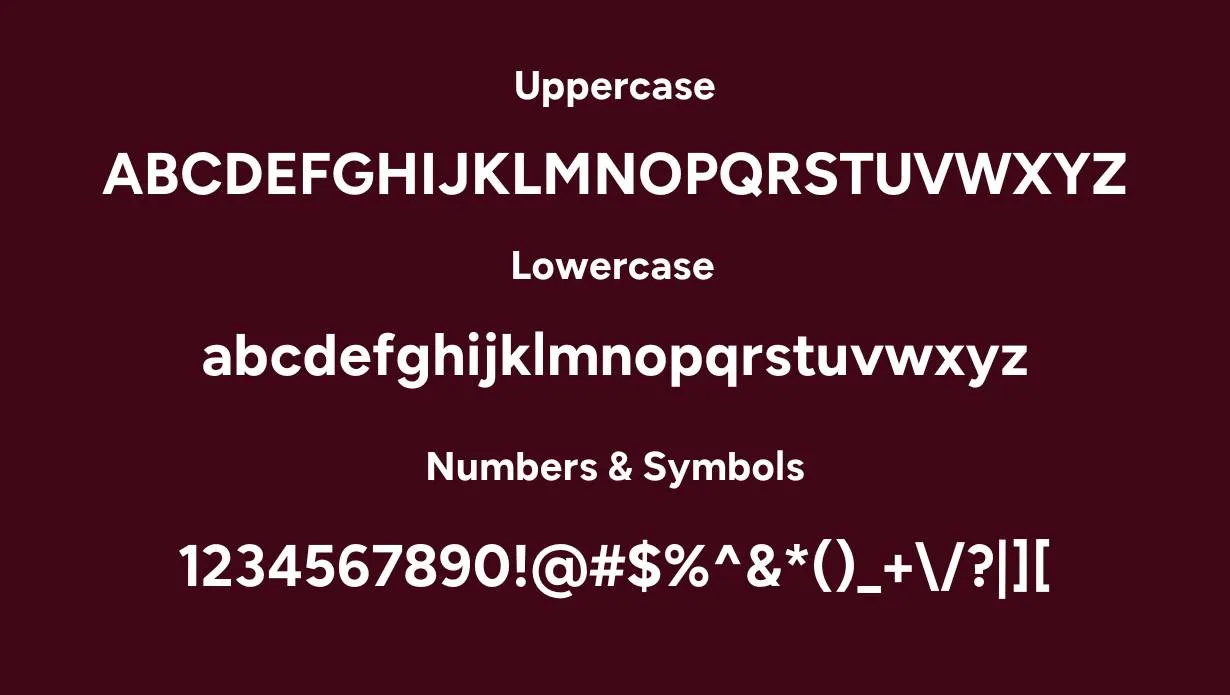
Blueberry Sans Font is a clean and straightforward typeface, ideal for projects that require a fresh and modern appearance.
With its simple characters, this font ensures readability, making it suitable for websites, brochures, or any design that values clarity. Supporting common file formats like TTF and OTF, Blueberry Sans Font is user-friendly for diverse design needs.